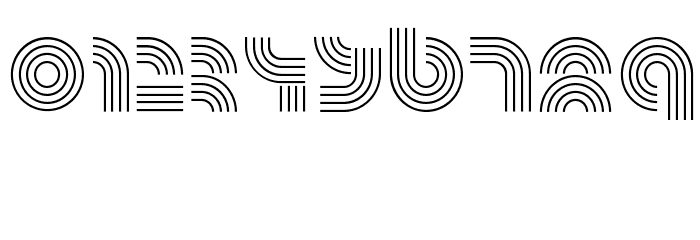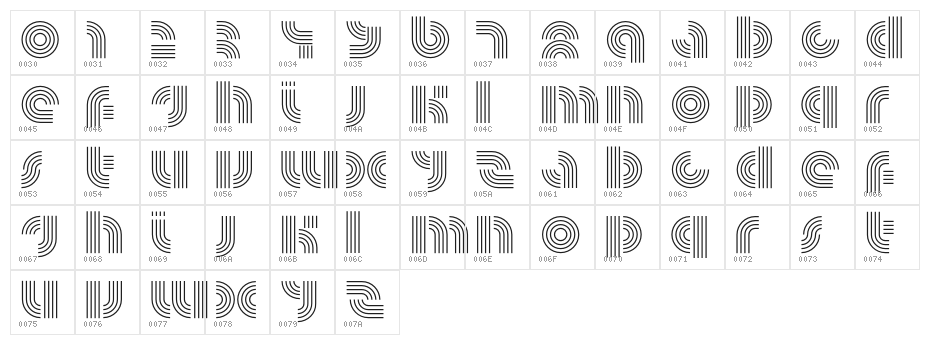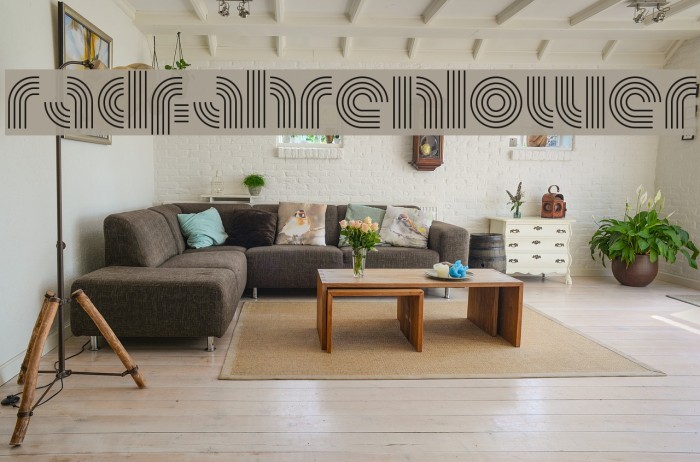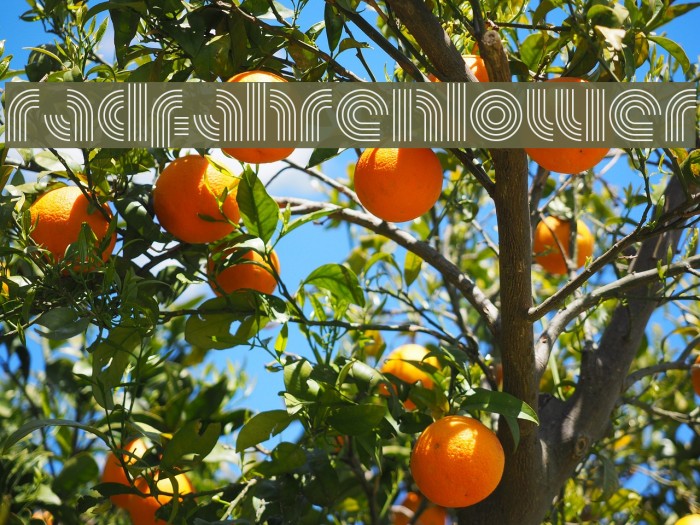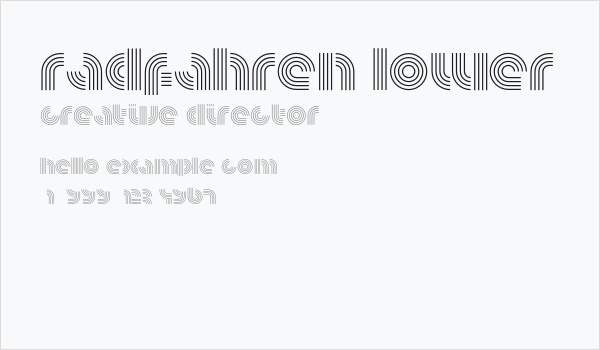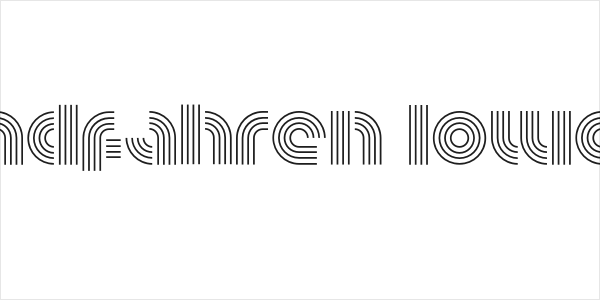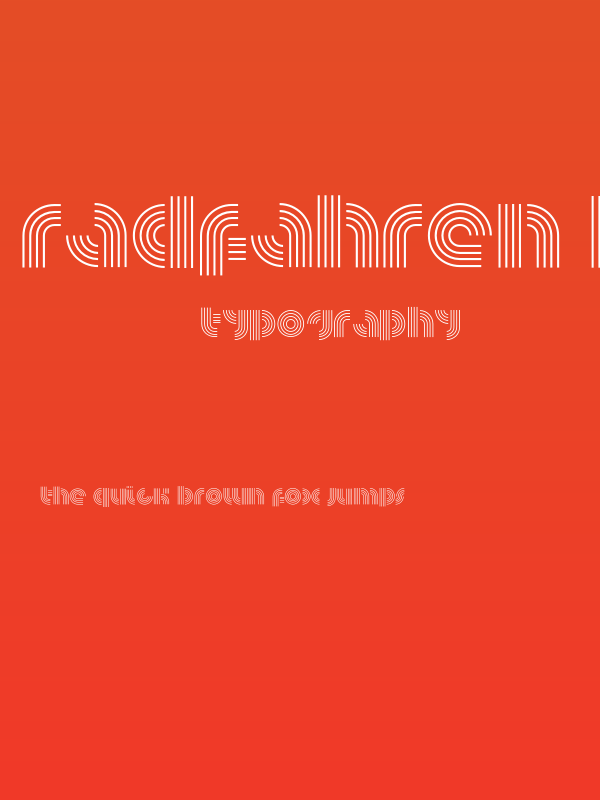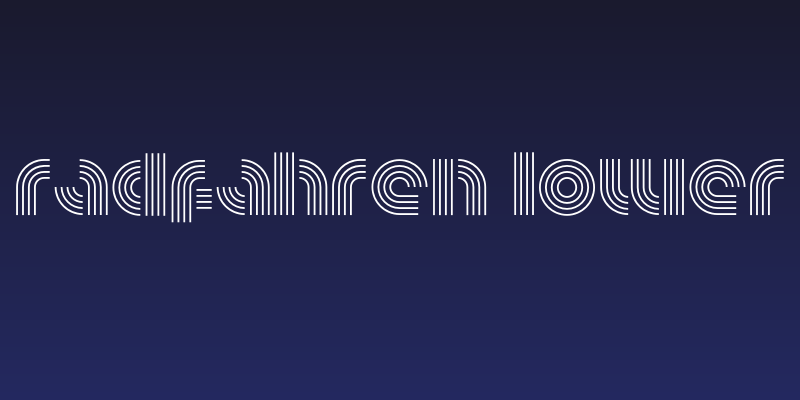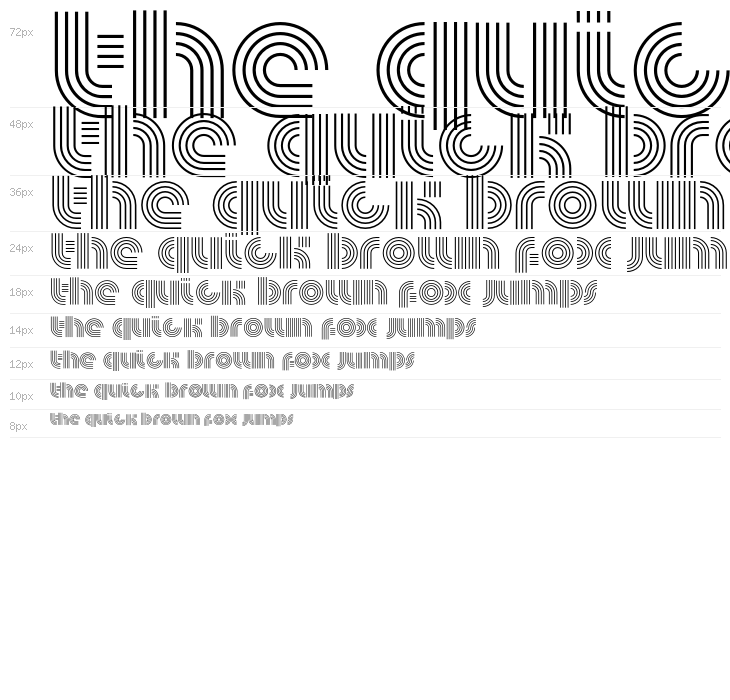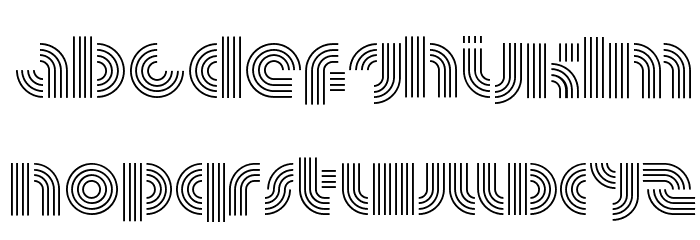
Radfahren-Lower Font
Radfahren-Lower Description
This font features a unique and modern design characterized by its use of parallel lines to form each character. The letters are constructed with multiple thin, evenly spaced lines that create a sense of movement and rhythm. This geometric style gives the font a futuristic and dynamic appearance, making it stand out in any design. The consistent line thickness across all characters ensures a uniform look, while the rounded edges add a touch of softness to the overall aesthetic. The font's design is both artistic and functional, suitable for a variety of creative applications.
| Proposed Projects | Ideal for branding, posters, album covers, and any project requiring a futuristic or artistic touch. |